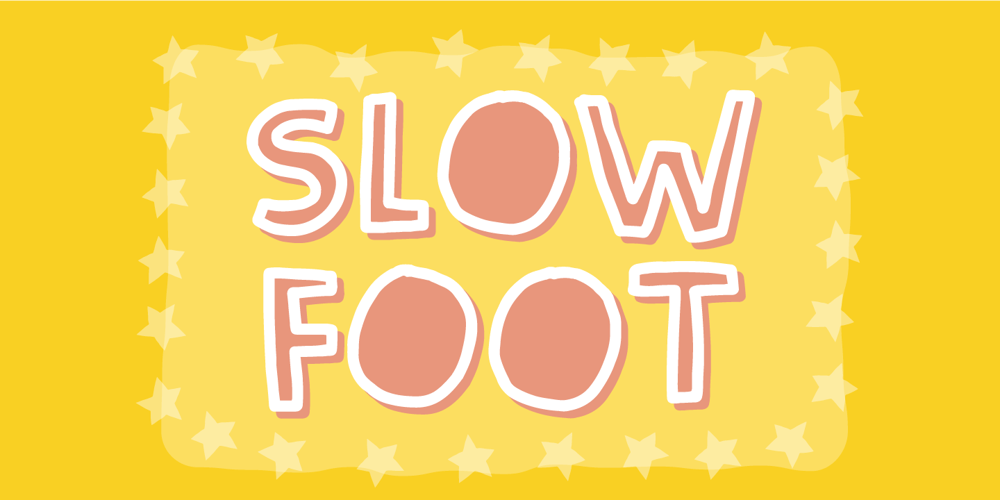
Slow Foot Font Family was designed by Jakob Fischer and published by PizzaDude.dk. Slow Foot contains 3 styles and family package options. What’s the hurry? Take your time! Take the first step with your Slow Foot and something (good) will show! :)A fun font with contextual alternates that leaves you with 6 different versions of each letter. That’s really nice when you want to spice up the variation of letters as you write.